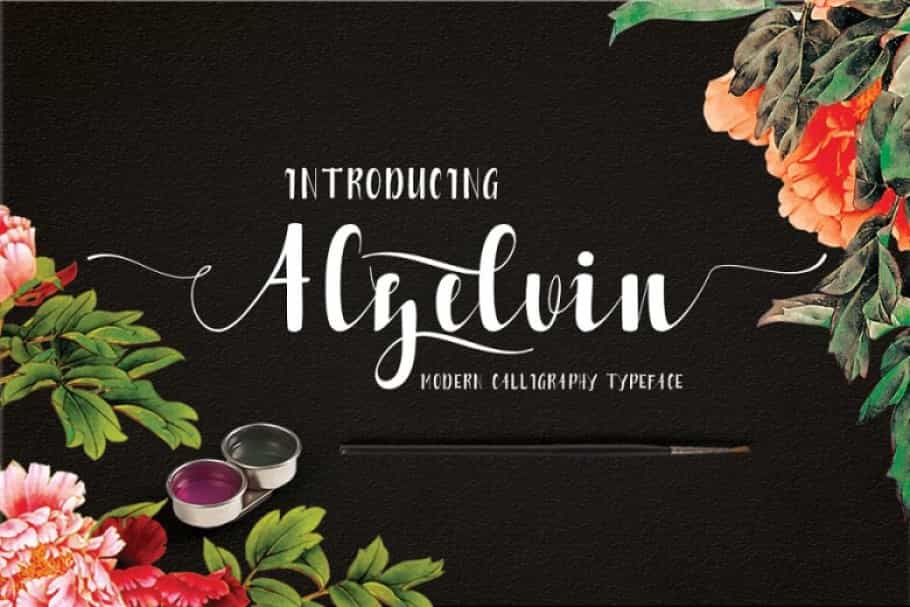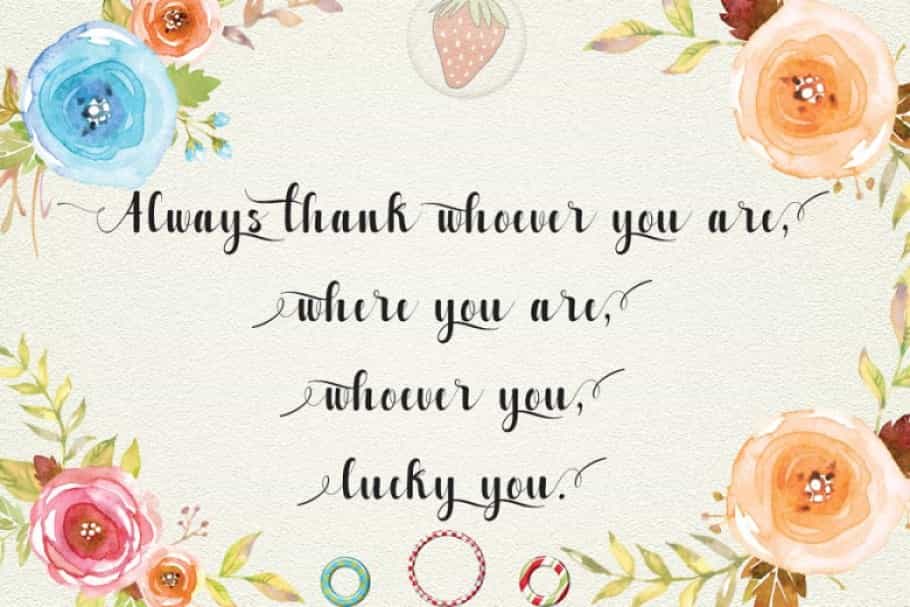
Alzelvin font style was derived from writing that has been hand written and live traced for calligraphic features. The style of writing is coherent. It is perfect for logos branding, modern advertisement designs for posters, quote, book or cover titles, editorial designs, websites, blogs, cards, t-shirts, and any other handwritten applications.